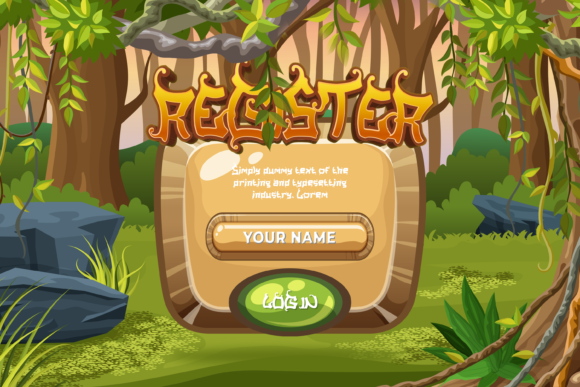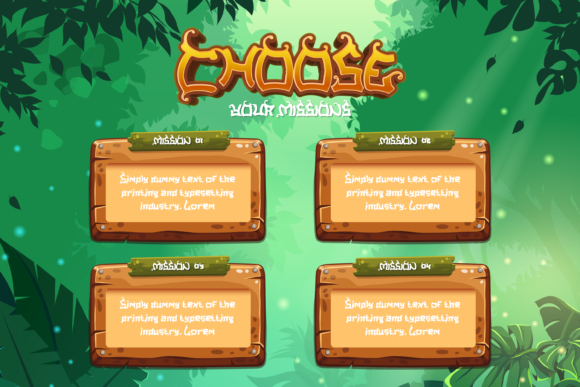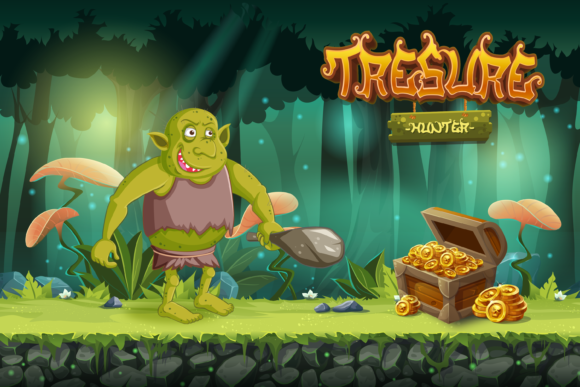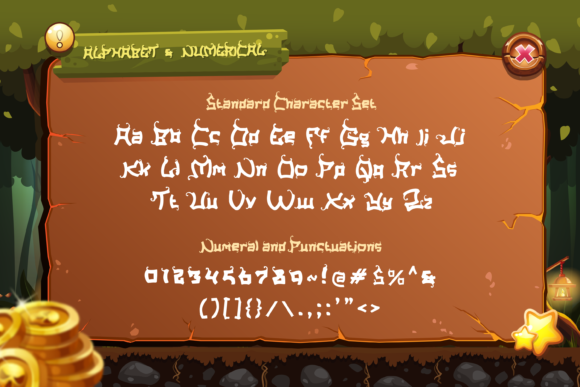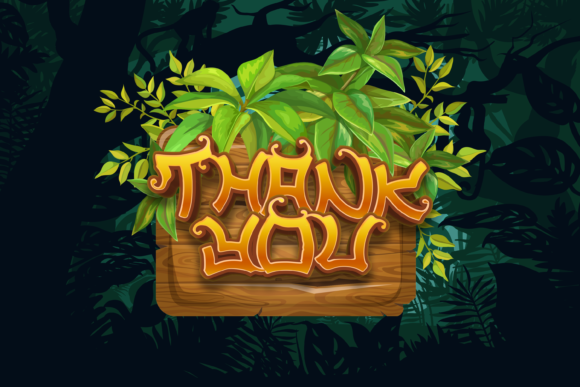
Discover the Whimsical Charm of Growth Forest Font
Are you tired of using the same old fonts in your designs? Look no further! Introducing Growth Forest Font, a delightful and quirky display font that’s sure to add a joyful touch to your creations. With its playful style and adorable charm, this font is perfect for designers and crafters looking to make their designs stand out.
What is Growth Forest Font?
Growth Forest Font is a unique and eye-catching display font that’s designed to bring a smile to your face. Its quirky and whimsical style makes it perfect for a variety of design projects, from stationary art to social media posts. Whether you’re a professional designer or a crafty DIY enthusiast, this font is sure to inspire your creativity.
Growth Forest Font is a versatile font that’s suitable for a wide range of design projects. Here are just a few ideas to get you started:
- Stationary Art: Use Growth Forest Font to create beautiful and unique greeting cards, invitations, and other paper crafts.
- Social Media Posts: Add a playful touch to your social media posts with this eye-catching font. Perfect for creating engaging and shareable content.
- Branding and Packaging: Use Growth Forest Font to add a touch of whimsy to your brand’s packaging and marketing materials.
- Digital Art: Experiment with Growth Forest Font in your digital art projects, such as illustrations, graphics, and animations.
Why Choose Growth Forest Font?
So, what sets Growth Forest Font apart from other fonts? Here are just a few reasons why designers and crafters love this font:
- Unique and Quirky Style: Growth Forest Font has a one-of-a-kind style that’s sure to make your designs stand out.
- Easy to Read: Despite its playful style, Growth Forest Font is easy to read and understand, making it perfect for use in a variety of design projects.
- High-Quality Design: This font is designed with high-quality craftsmanship in mind, ensuring that it looks great in any design.
Tips for Using Growth Forest Font
Here are a few tips for getting the most out of Growth Forest Font:
- Experiment with Colors: Growth Forest Font looks great in a variety of colors, so don’t be afraid to experiment and find the perfect hue for your design.
- Mix and Match: Combine Growth Forest Font with other fonts to create a unique and eye-catching design.
- Play with Size: Growth Forest Font looks great in a variety of sizes, from large and bold to small and delicate.
Growth Forest Font is an adorable quirky display font. It will add an incredibly joyful touch to your designs. Fall in love with its playful style and use it to create beautiful stationary art, eye-catching social media posts, and much more!